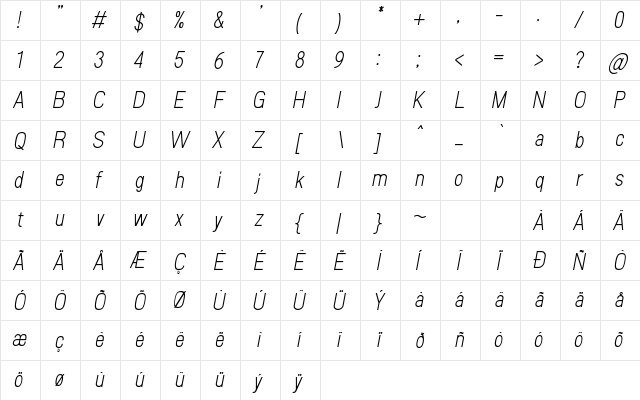
Sanlulus Light Italic Regular
Design Context for Sanlulus Light Italic Typeface
Sanlulus Light Italic is a composed and adaptable typeface that performs quietly and consistently across a wide range of design contexts. Its italic angle brings a sense of urgency and motion to the letterforms. Its slender proportions lend an understated elegance to any composition.
Pro Tip: Use Sanlulus Light Italic for emphasis, pull quotes, and subheadings where its slanted energy can add rhythm to the layout.